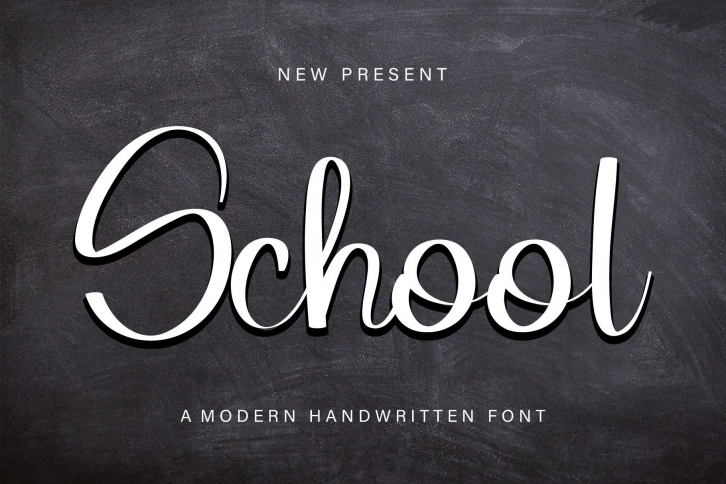
School is a magical script font carefully created with a touch of elegance. Whether you’re looking for fonts for social media or calligraphy scripts for DIY projects, this font will turn any creative idea into a piece of art!